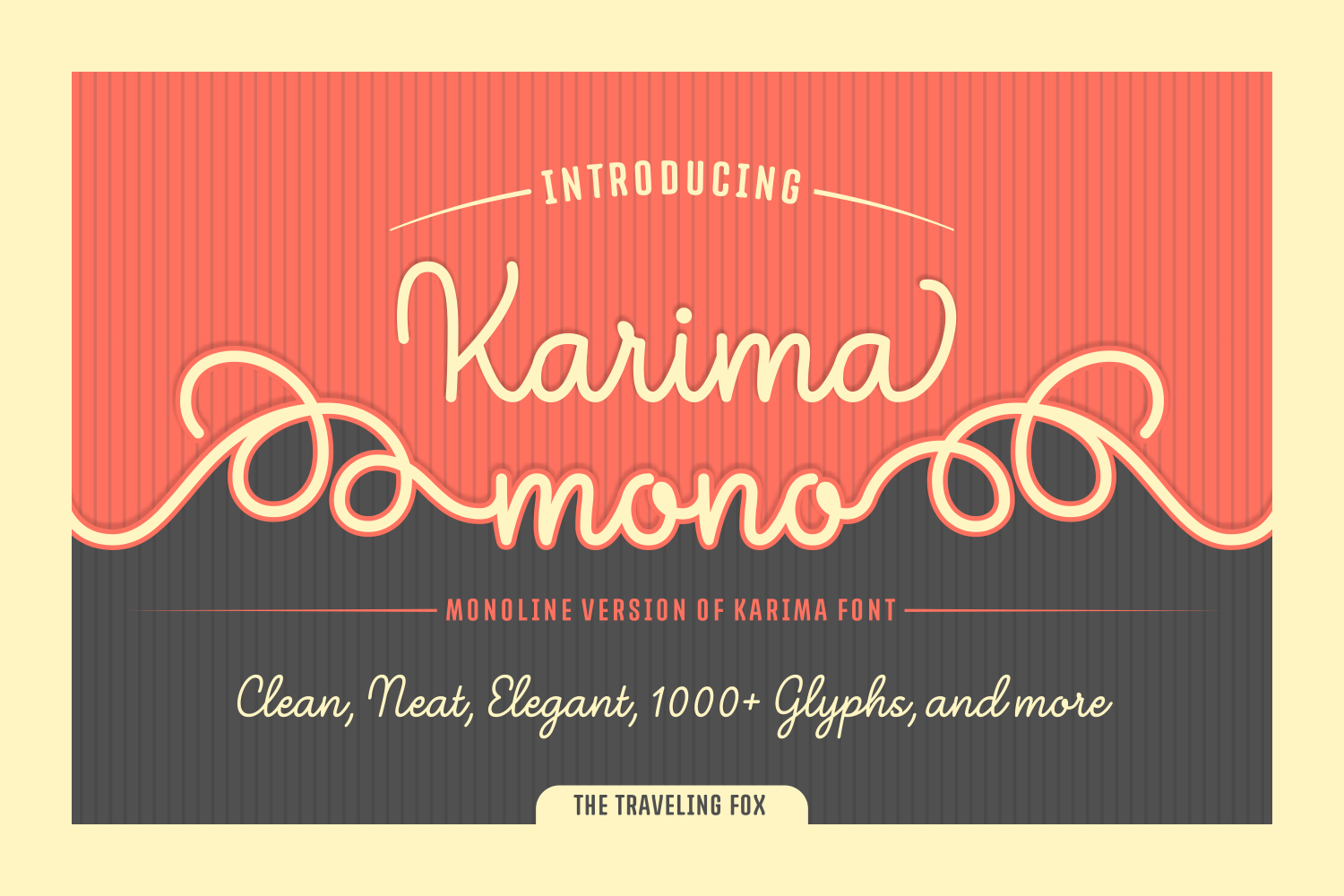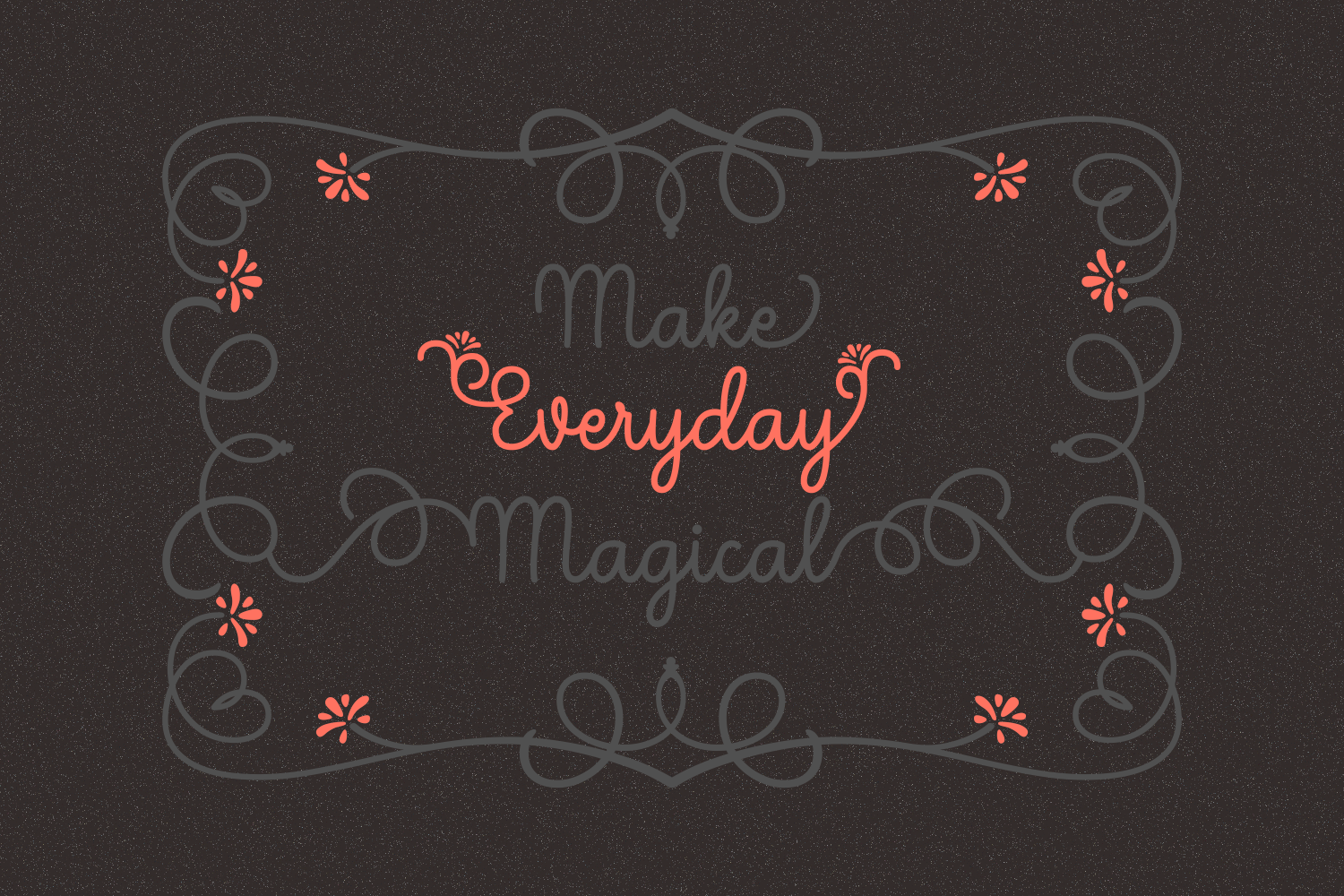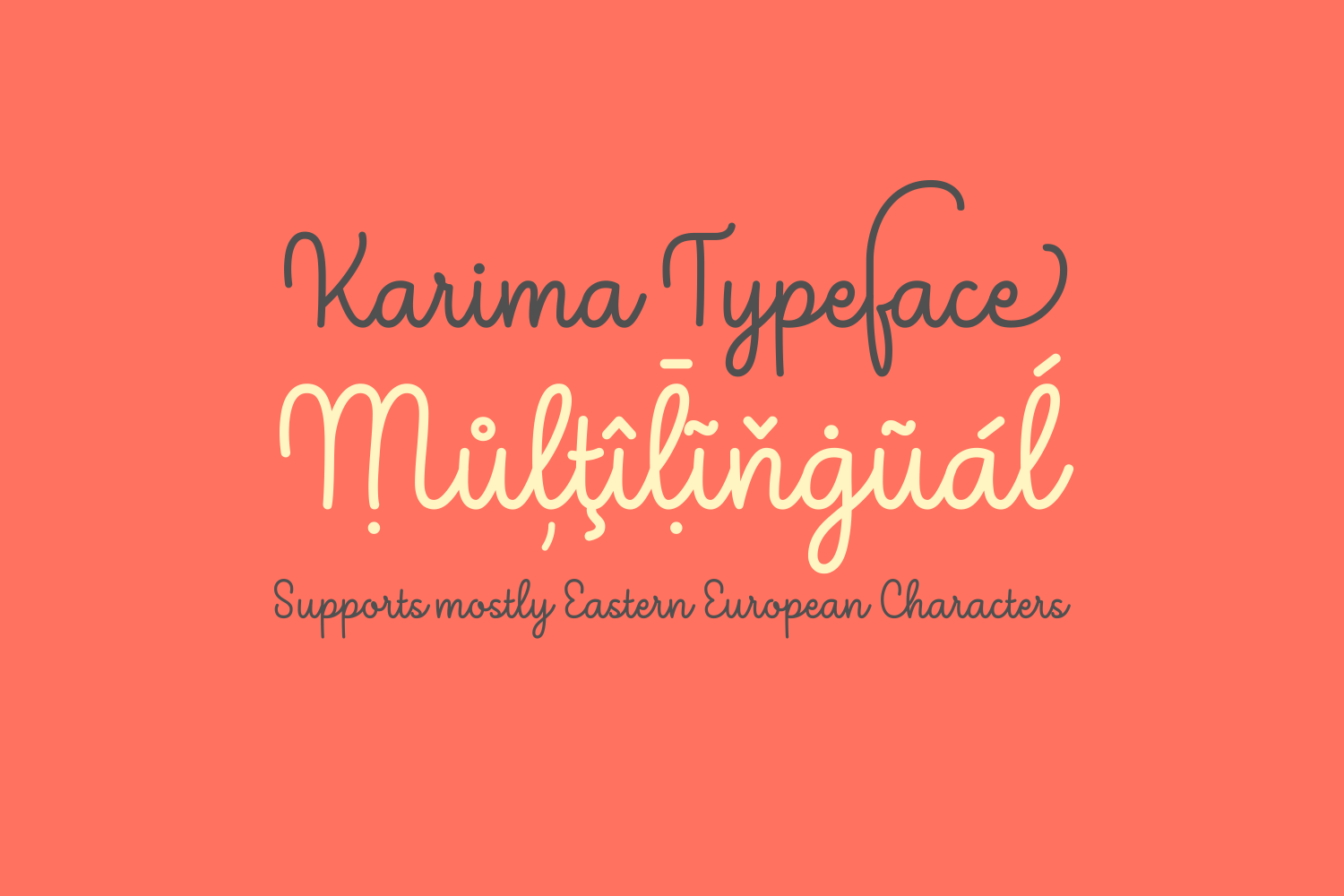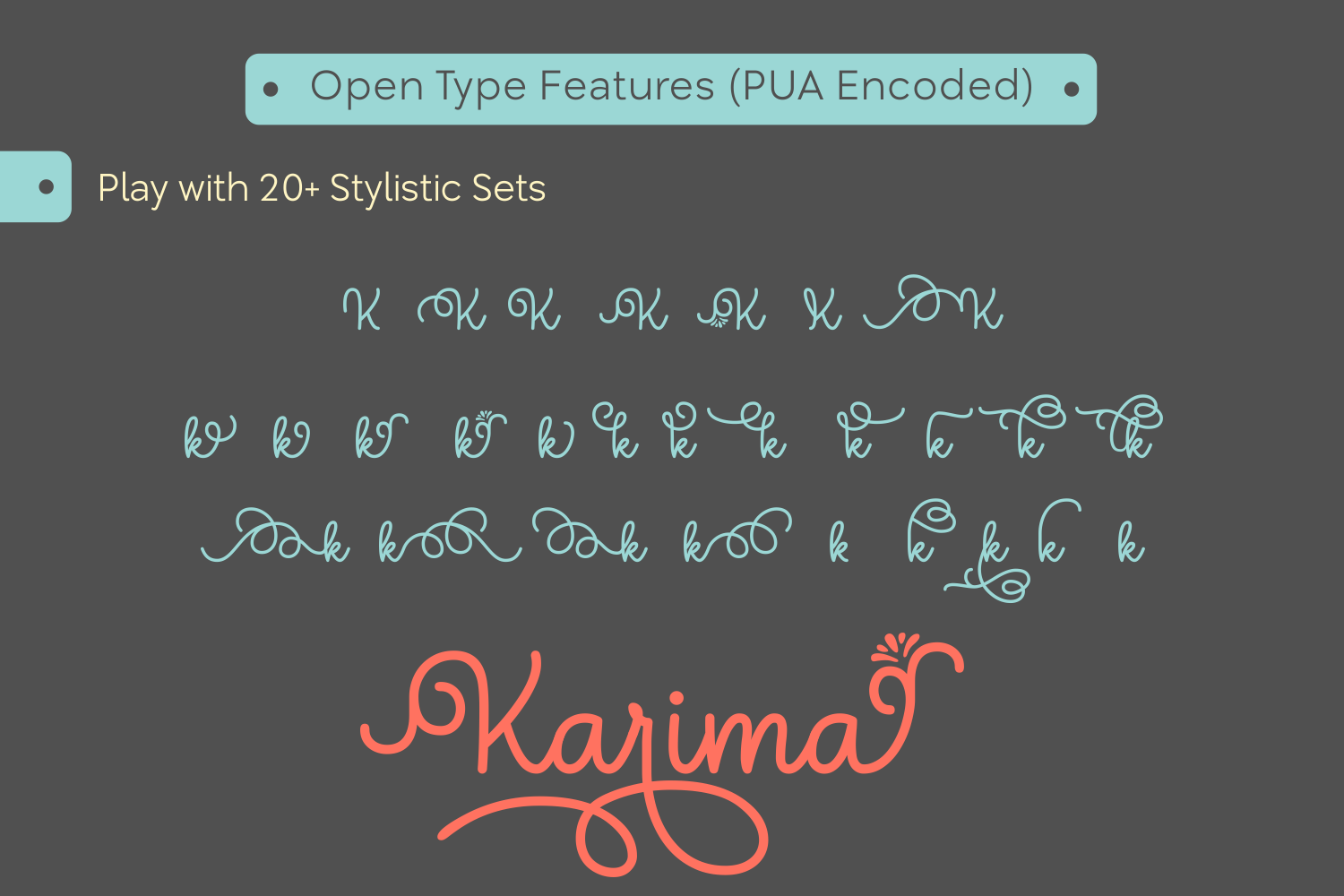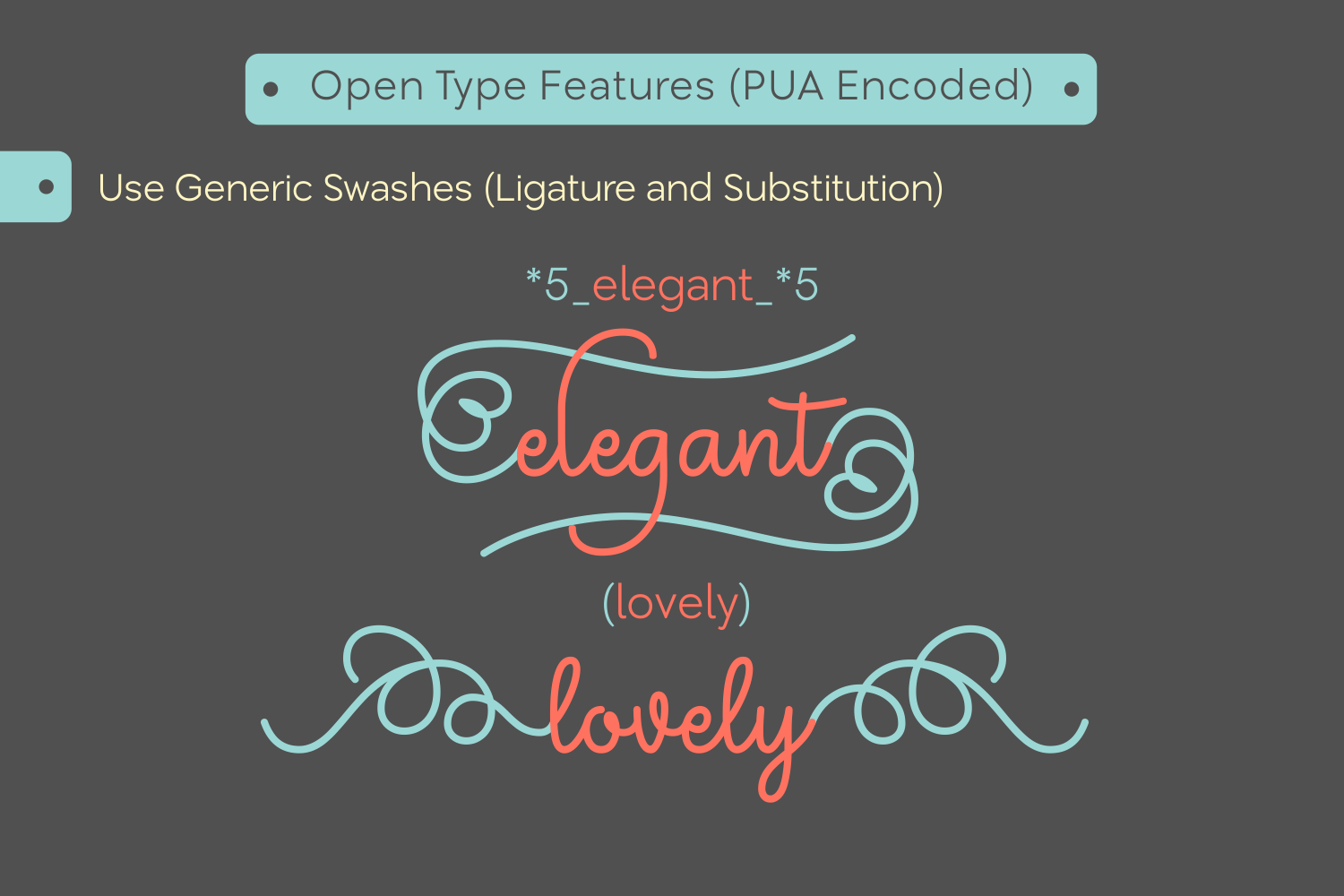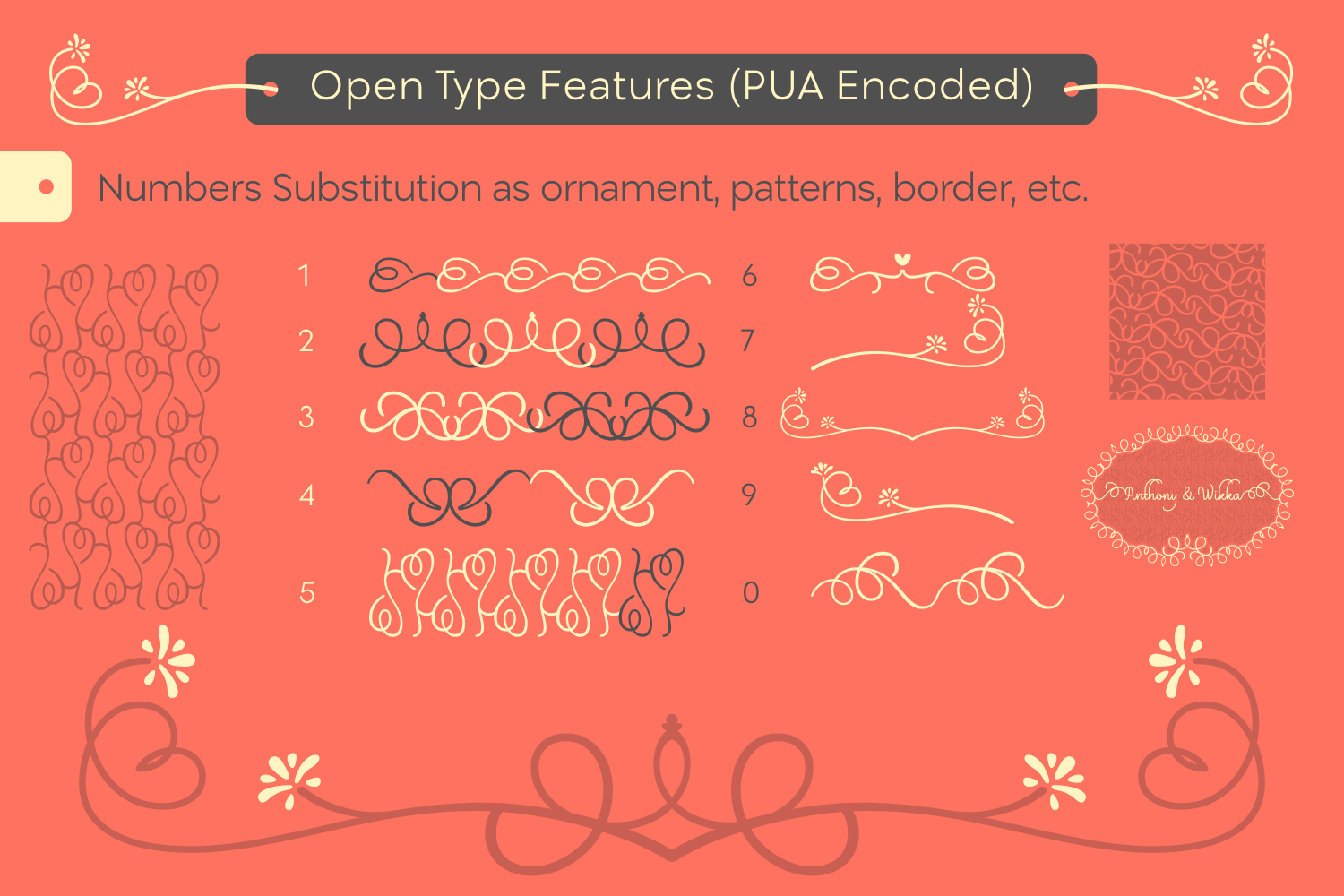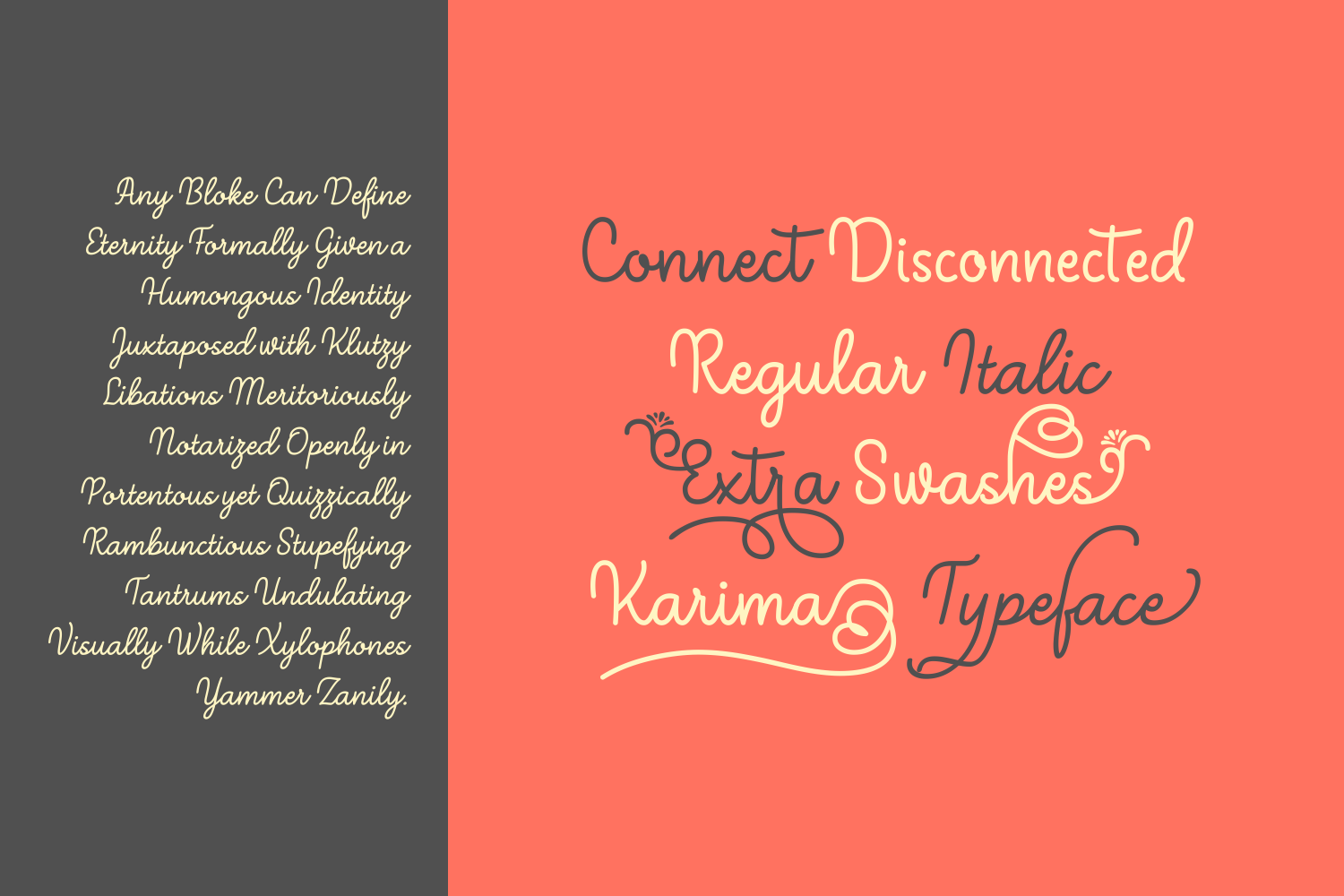
Karima Mono Font
Karima Mono is a stunning monoline script featuring over a 1000 unique glyphs.
It’s multi-lingual, eligible and features more than 20 stylistic alternates, allowing you to create endless combinations and variations.
With this font in your toolbox, you will be able to turn each design into something unique within a matter of seconds.